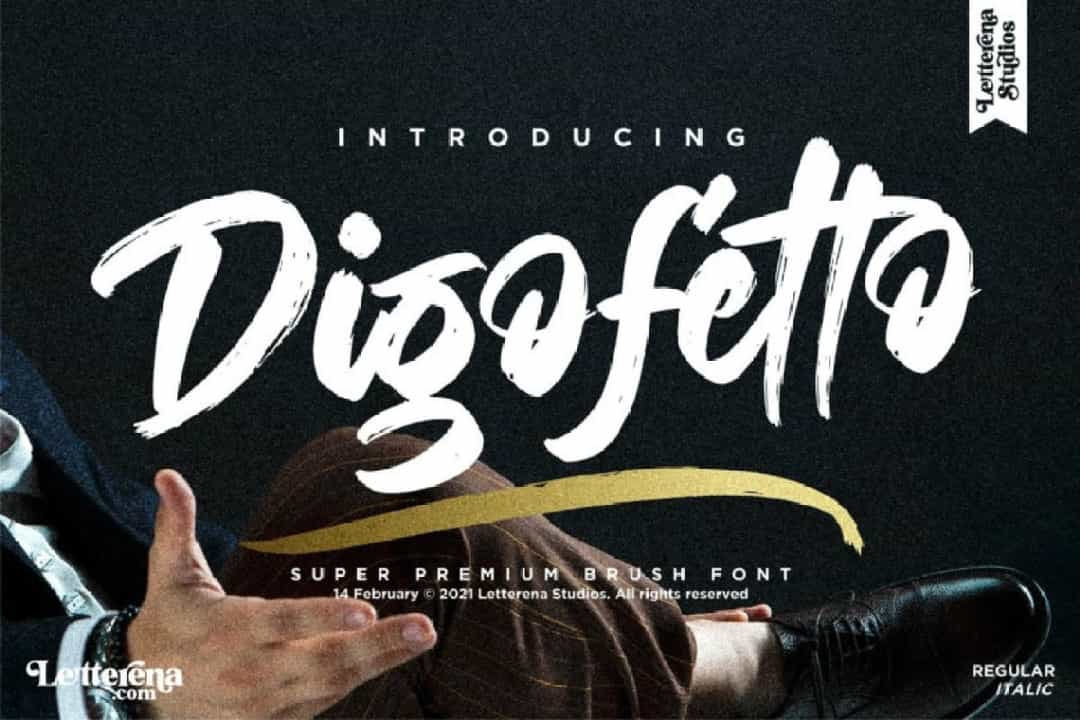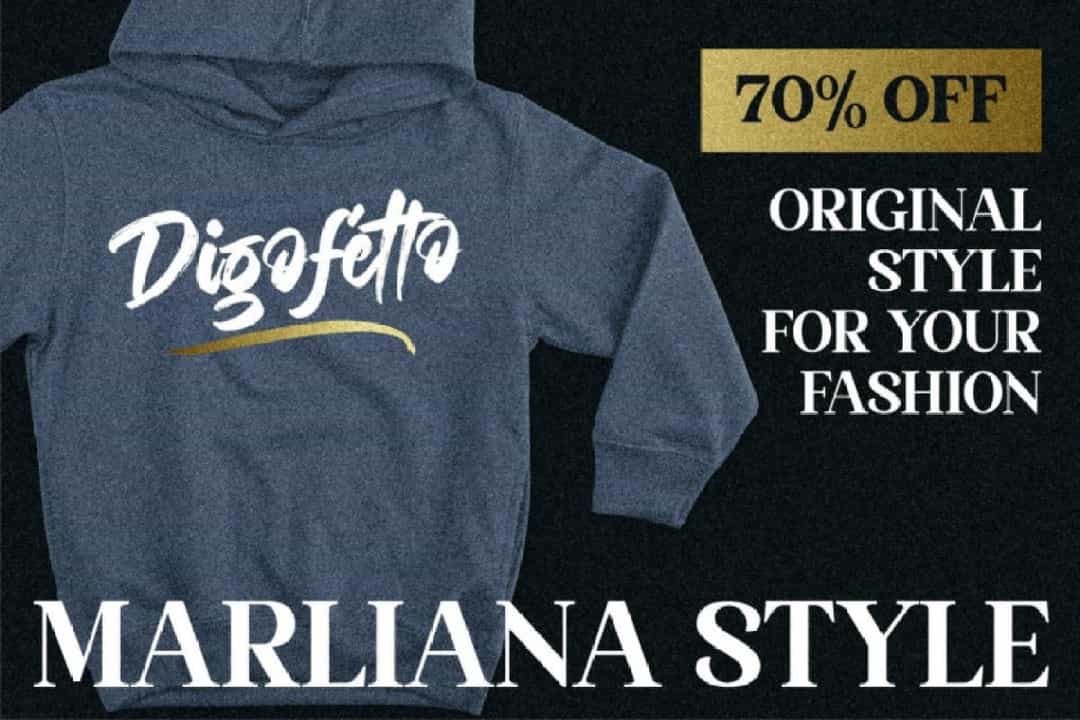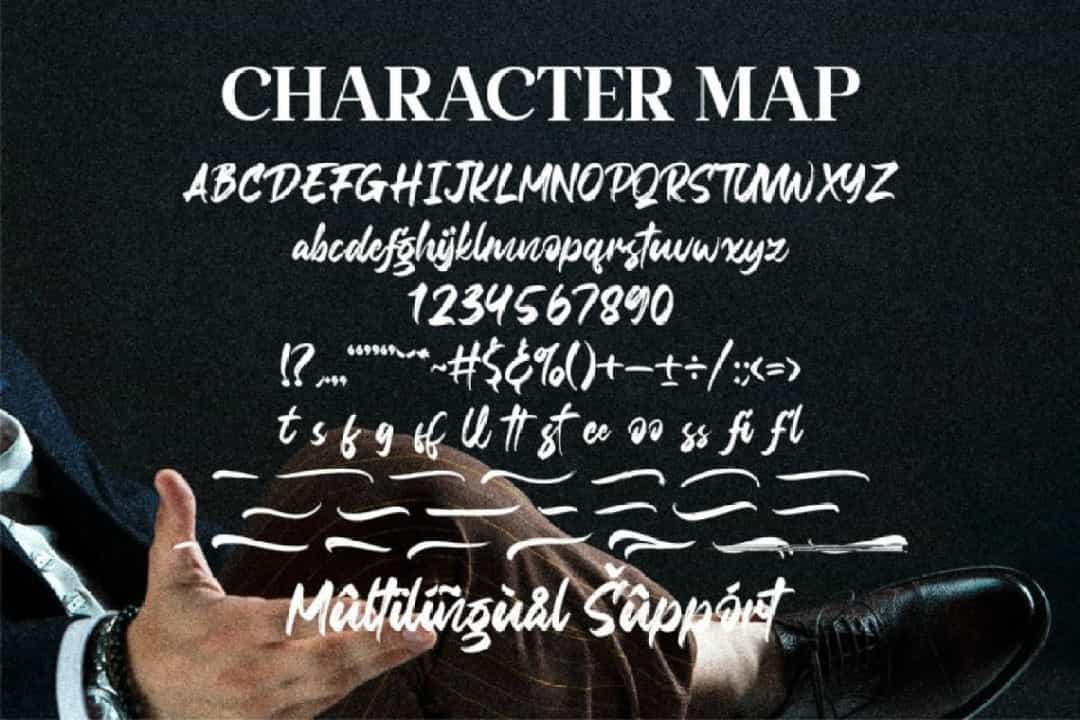
Digofetto is a high quality brush script font that can be used for any type of designing projects including logos, branding designs, designs for homeware and packaging for any products, posters, quotes and clothing bags, books, greeting cards invitation cards, labels, watermarks for photographs, special events or anything that needs a strong brush stroke feel.